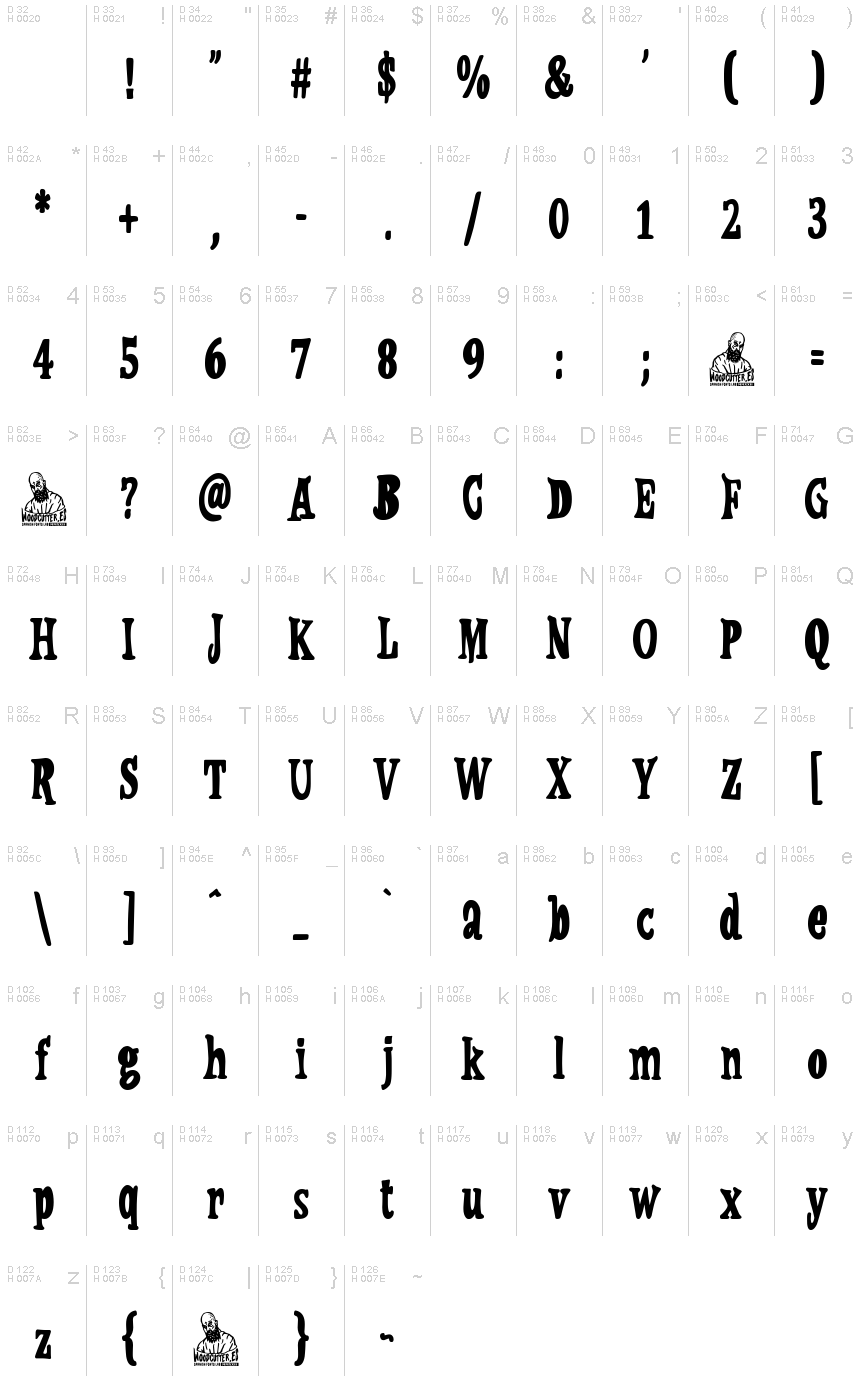
Código Secreto
Código Secreto, crafted by Woodcutter Manero, stands out as a vibrant display font with an unmistakable cartoon charm. The tight, condensed letterforms lend a whimsical yet bold presence, making it perfect for projects that seek to capture attention with a playful flair.
Its exaggerated curves and thick strokes exude a sense of fun and creativity, ideal for children's books, comic strips, and party invitations. Código Secreto infuses any design with an energetic personality, ensuring your message is both unique and memorable.